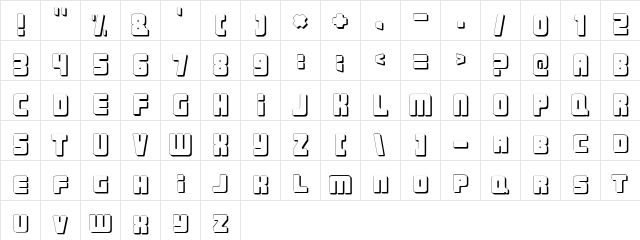
Urban Constructed Shadow
| Style | Shadow |
| Foundry | Nils von Blanc https://www.nils-von-blanc.de) |
| Designer | Nils von Blanc |
Design Context for Urban Constructed Typeface
Urban Constructed is built around its visual character rather than neutral utility — its distinctive forms are designed to make an impression at display sizes.
Font Pairing: Pair with a clean neutral sans-serif for body copy to let Urban Constructed's character lead without overwhelming the composition.
Pro Tip: Use Urban Constructed exclusively at display sizes — it was designed to be seen, not read at length. Let a neutral companion handle body copy.